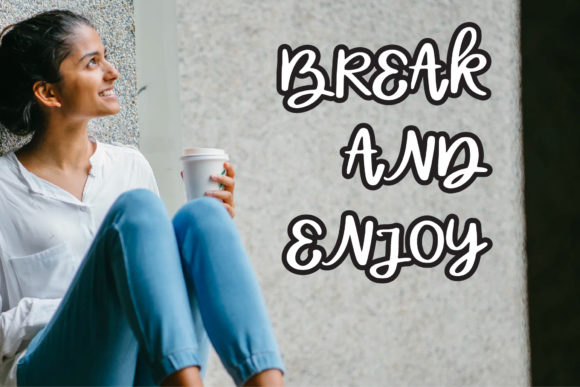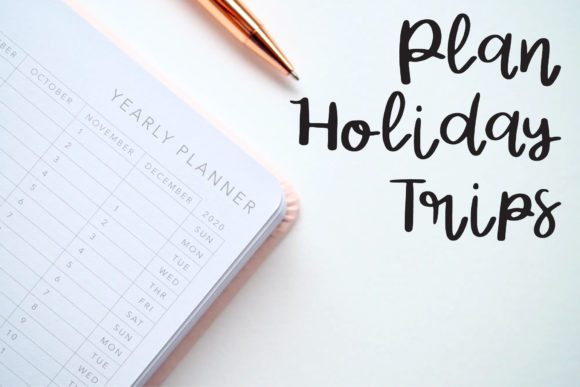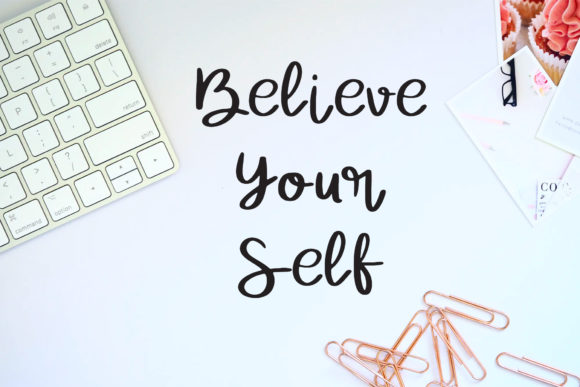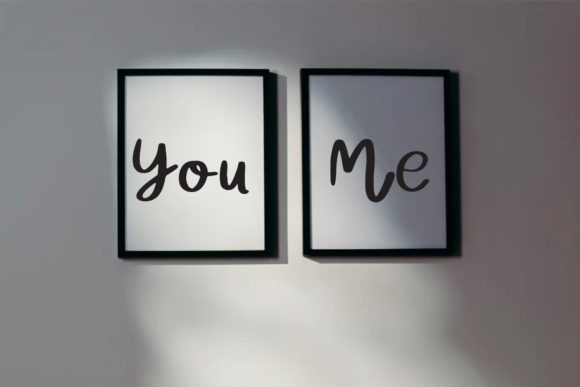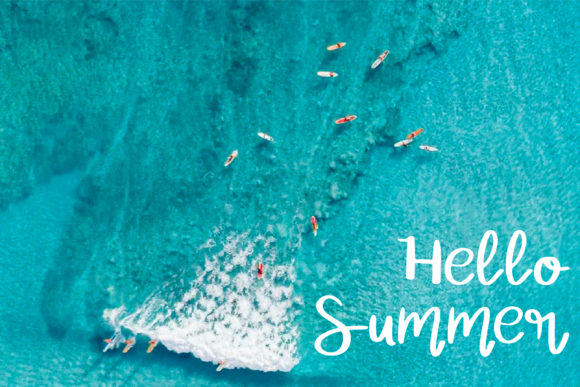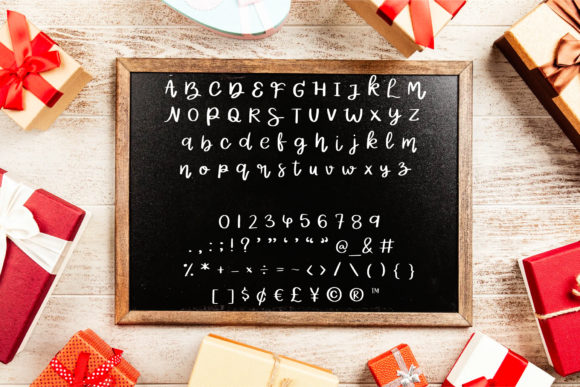
Discover the Charm of Dean Font: A Sweet and Round Lettered Handwritten Font
Are you tired of using the same old fonts in your designs? Look no further! Introducing Dean Font, a sweet and round lettered handwritten font that is sure to capture your heart. With its incredibly versatile style, Dean Font is perfect for designers and crafters who want to add a personal touch to their work.
What Makes Dean Font So Special?
Dean Font is a unique and charming handwritten font that is designed to make your designs stand out. Its sweet and round lettered style gives it a friendly and approachable feel, making it perfect for a wide range of projects, from wedding invitations and party decorations to branding and advertising materials.
One of the things that sets Dean Font apart from other fonts is its versatility. It can be used in a variety of contexts, from formal and elegant designs to more casual and playful ones. Whether you’re creating a logo, a brochure, or a social media post, Dean Font is sure to add a touch of personality and whimsy to your work.
Features of Dean Font
So, what makes Dean Font so special? Here are just a few of its key features:
• Sweet and Round Lettered Style: Dean Font’s unique lettered style gives it a charming and approachable feel that’s perfect for designs that need a personal touch.
• Incredibly Versatile: Whether you’re creating a formal or casual design, Dean Font is sure to fit the bill.
• Handwritten with Love: Dean Font is a handwritten font that is crafted with love and care, giving it a unique and personal feel.
• Easy to Read: Despite its playful style, Dean Font is easy to read and understand, making it perfect for designs that need to communicate a message.
Uses of Dean Font
So, what can you use Dean Font for? The possibilities are endless! Here are just a few ideas to get you started:
• Wedding Invitations and Party Decorations: Dean Font is perfect for creating beautiful and unique wedding invitations, party decorations, and other celebratory materials.
• Branding and Advertising: Use Dean Font to add a personal touch to your branding and advertising materials, such as logos, brochures, and social media posts.
• Stationery and Gift Tags: Dean Font is great for creating custom stationery, gift tags, and other paper crafts.
• Web Design: Use Dean Font to add a touch of personality to your website or blog.
Tips for Using Dean Font
Here are a few tips for getting the most out of Dean Font:
• Experiment with Different Sizes and Colors: Dean Font looks great in a variety of sizes and colors, so don’t be afraid to experiment and find the perfect combination for your design.
• Pair it with Other Fonts: Dean Font pairs well with a variety of other fonts, so try combining it with other fonts to create a unique and interesting design.
• Use it for Headings and Titles: Dean Font is perfect for headings and titles, where its playful style can really shine.
In conclusion, Dean Font is a sweet and round lettered handwritten font that is sure to capture your heart. With its incredibly versatile style and charming lettered design, it’s perfect for designers and crafters who want to add a personal touch to their work. Whether you’re creating a wedding invitation, a logo, or a social media post, Dean Font is sure to make your design stand out. So why wait? Fall in love with Dean Font today and start creating spectacular designs!